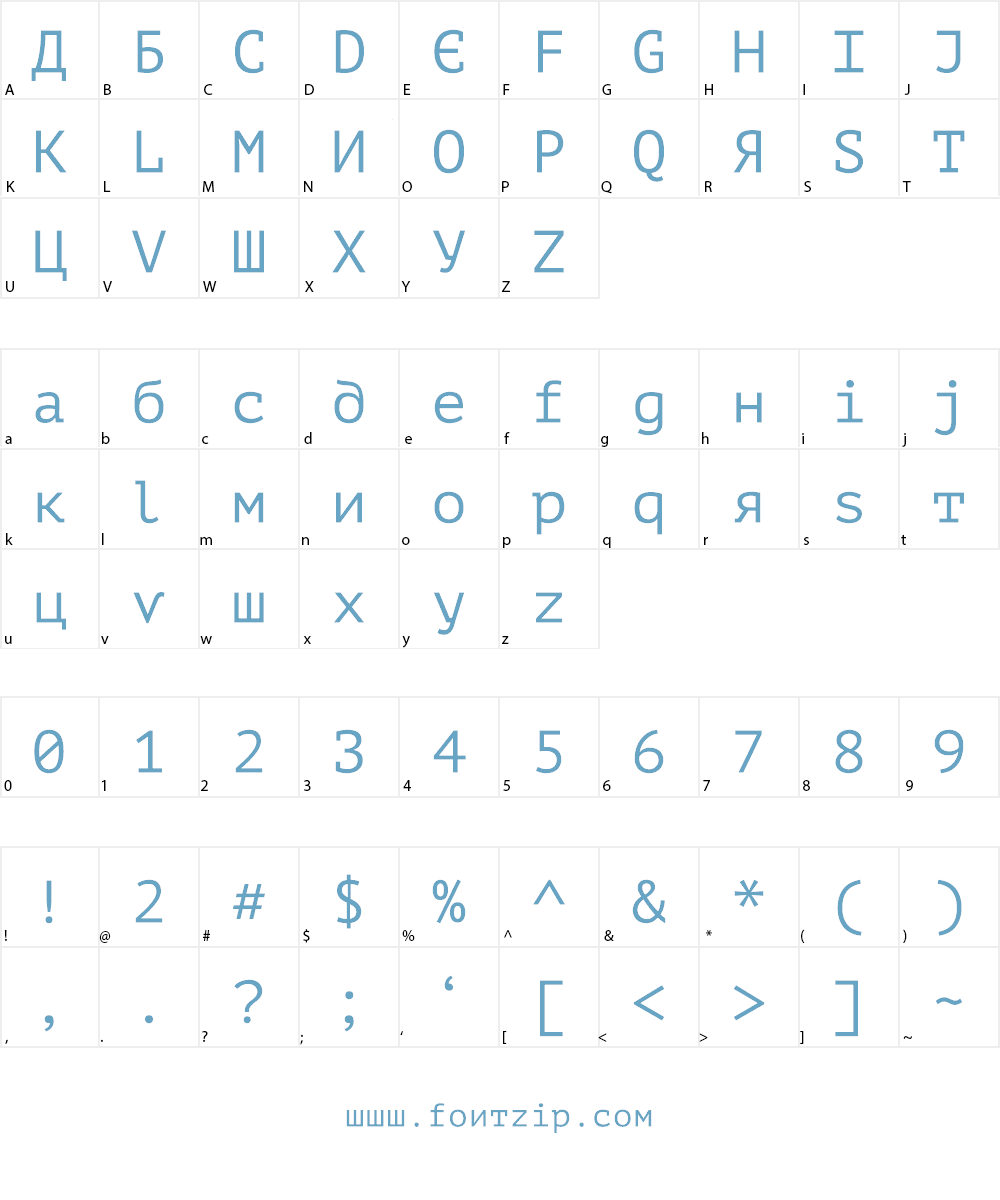
Code Red October is a faux-Russian monospaced font based on ParaType's PT Mono. Unlike other faux-Russian fonts, it is suitable for computer programming, software coding, text and headlining. The font's title is a portmanteau of the words "Code Red" and "Red October".